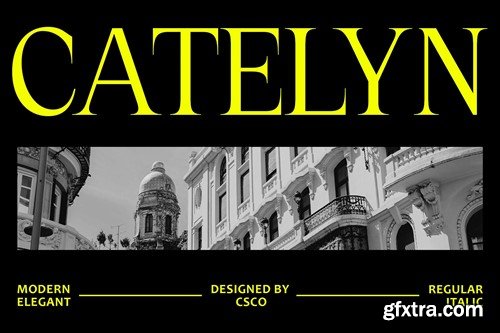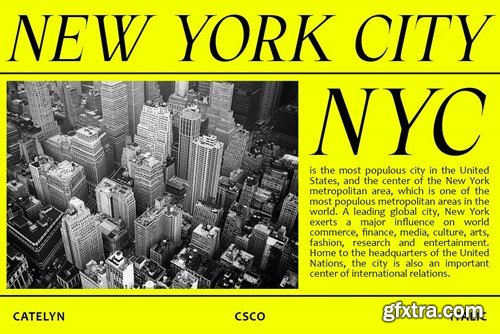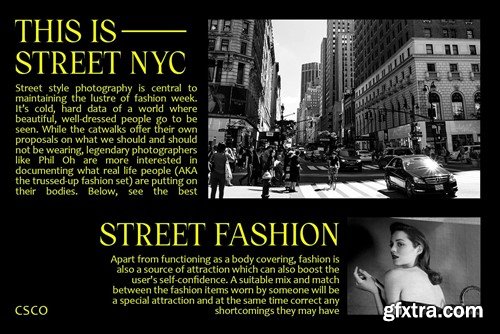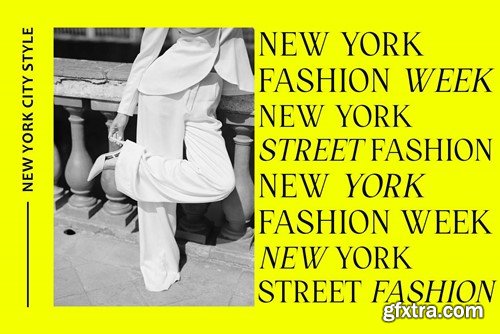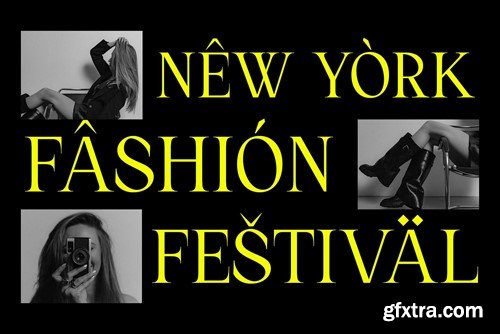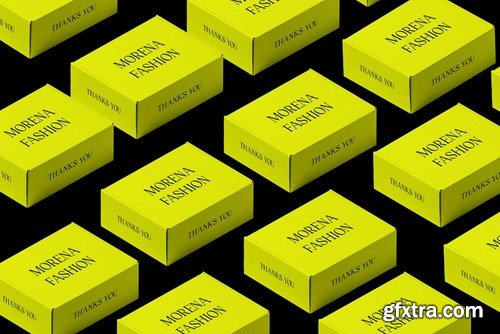
Catelyn – Elegant Font 3JMNT4K
Catelyn Font: Exuding Elegance and Character Sharp Serifs for Distinctiveness Catelyn font features pointed serif that lend it a unique and distinguished appearance. The sharp edges and high contrast enhance its visual impact, setting it apart from conventional serif fonts. Elegance in Every Stroke Each letter of Catelyn exudes elegance, thanks to its meticulously crafted design. The sharp serifs and high contrast contribute to its refined and sophisticated aesthetic, making it an ideal choice for projects that require a touch of class. Character and Charm With its sharp serifs and high contrast, This font embodies character and charm. Its distinct appearance adds personality to any text, capturing the attention of viewers and leaving a lasting impression. Versatility in Application Despite its elegant demeanor, This font is versatile in its application. Whether used for branding, editorial design, or invitations, its sharp serifs and high contrast ensure readability and visual appeal across various mediums. Elegance Meets Character This font stands out as an elegant font with sharp serifs and high contrast, exuding character and charm in every stroke. Its versatile nature and refined aesthetic make it a go-to choice for projects that demand sophistication and visual impact. Experience the allure of Catelyn and elevate your designs with its timeless elegance. What you get : Features : If you have any inquiries or need assistance, please feel free to contact us. We appreciate your support in enhancing your creative projects! Best regards, Craft Supply Co.